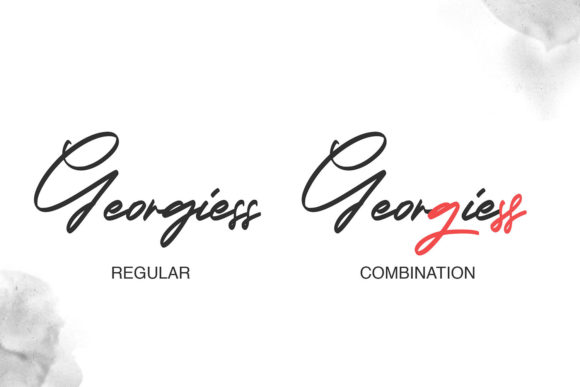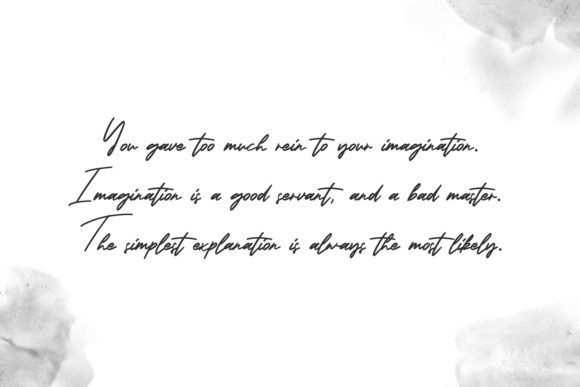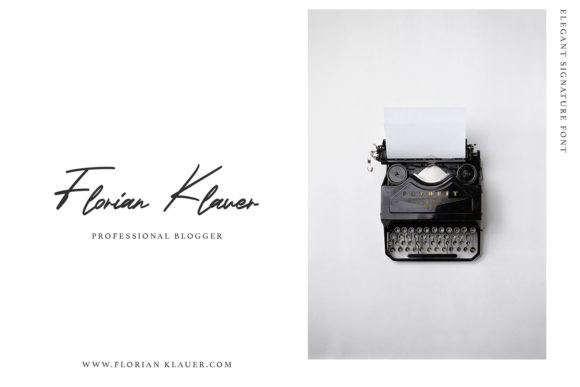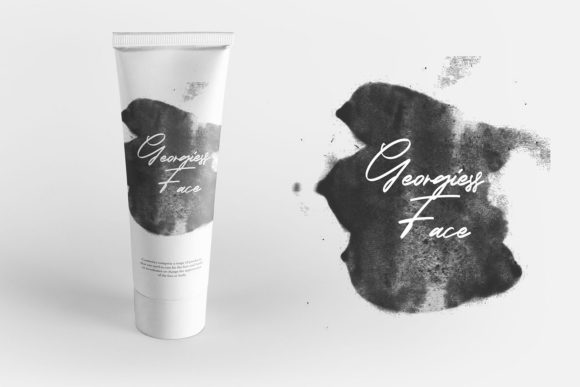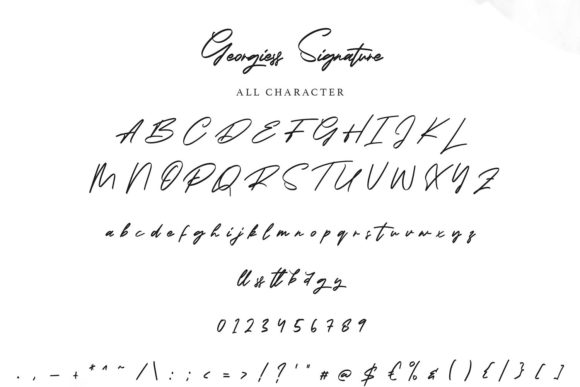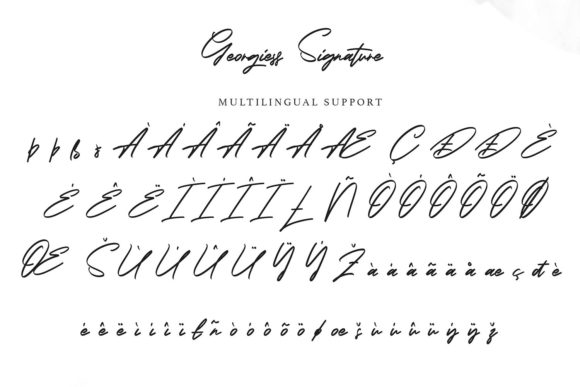
Introduction to Georgiess Signature Font
Georgiess Signature is an exquisite handwritten font, masterfully designed to become a true favorite.
Key Features of Georgiess Signature Font